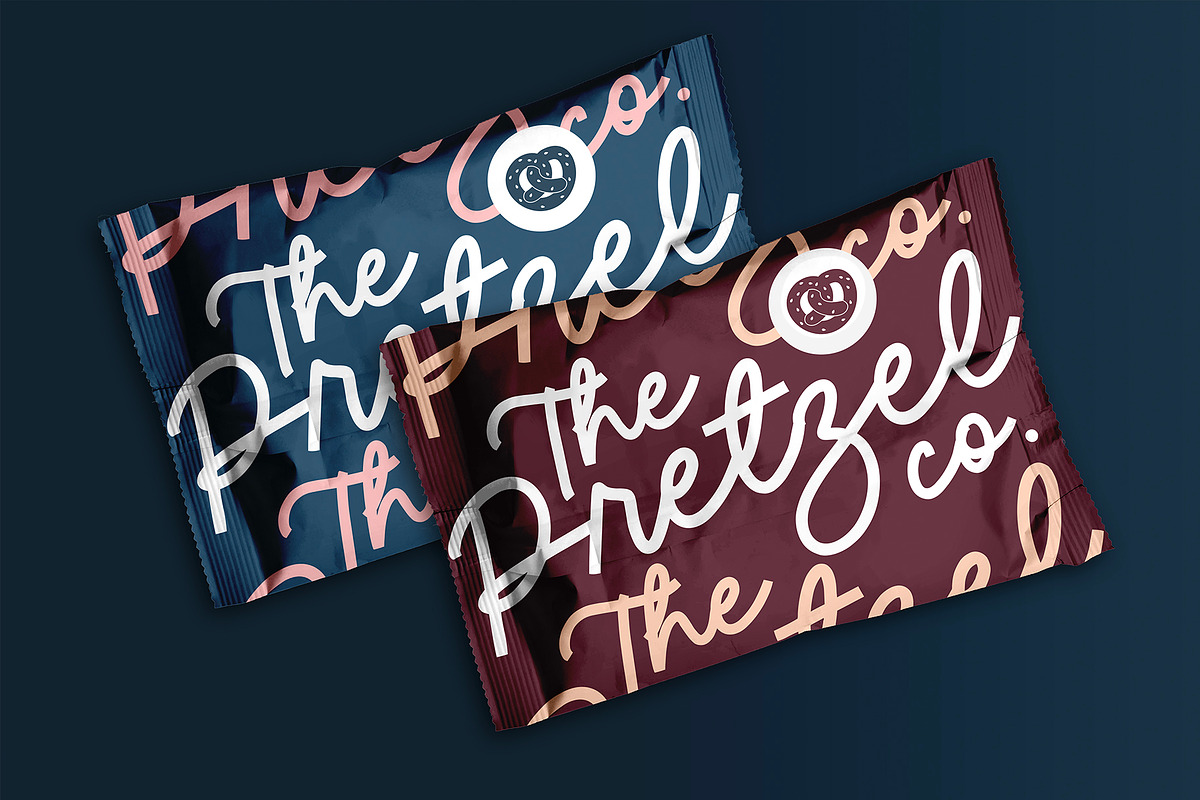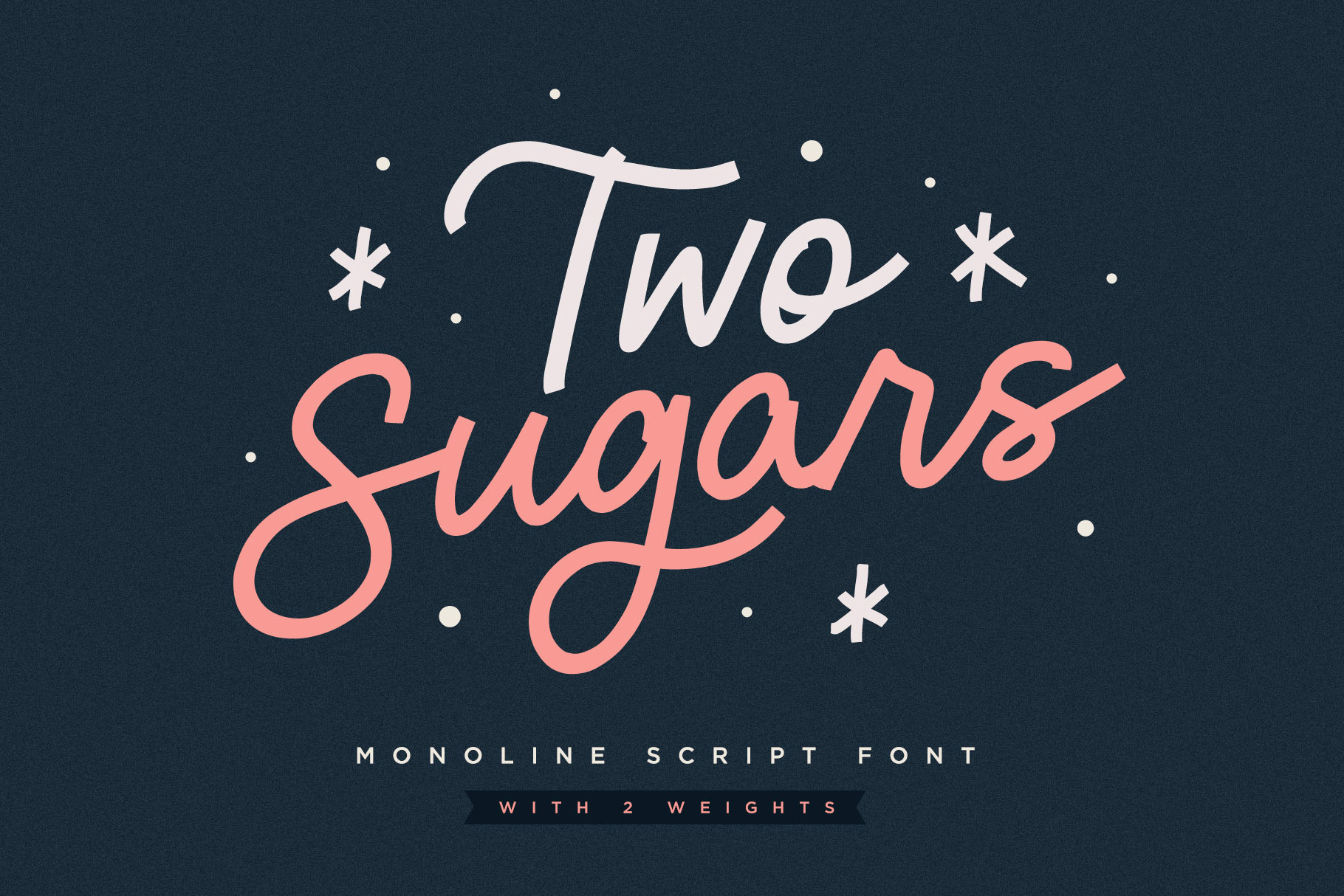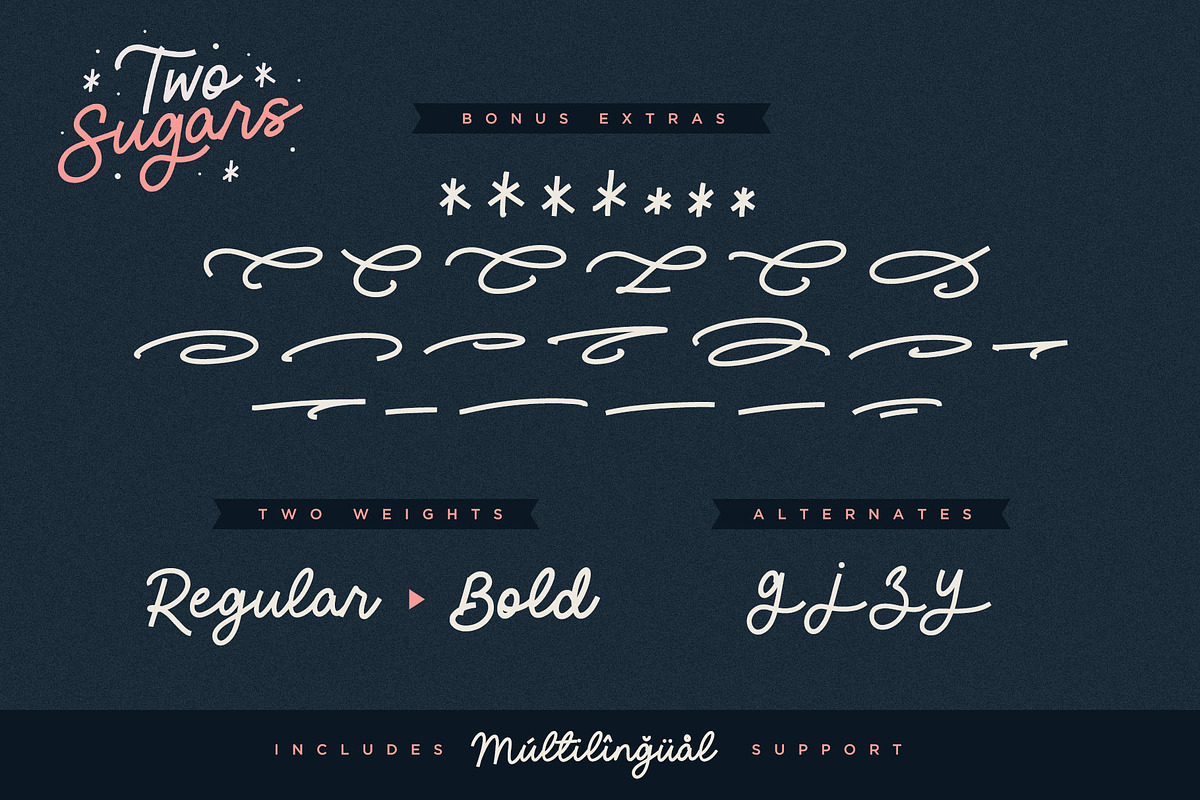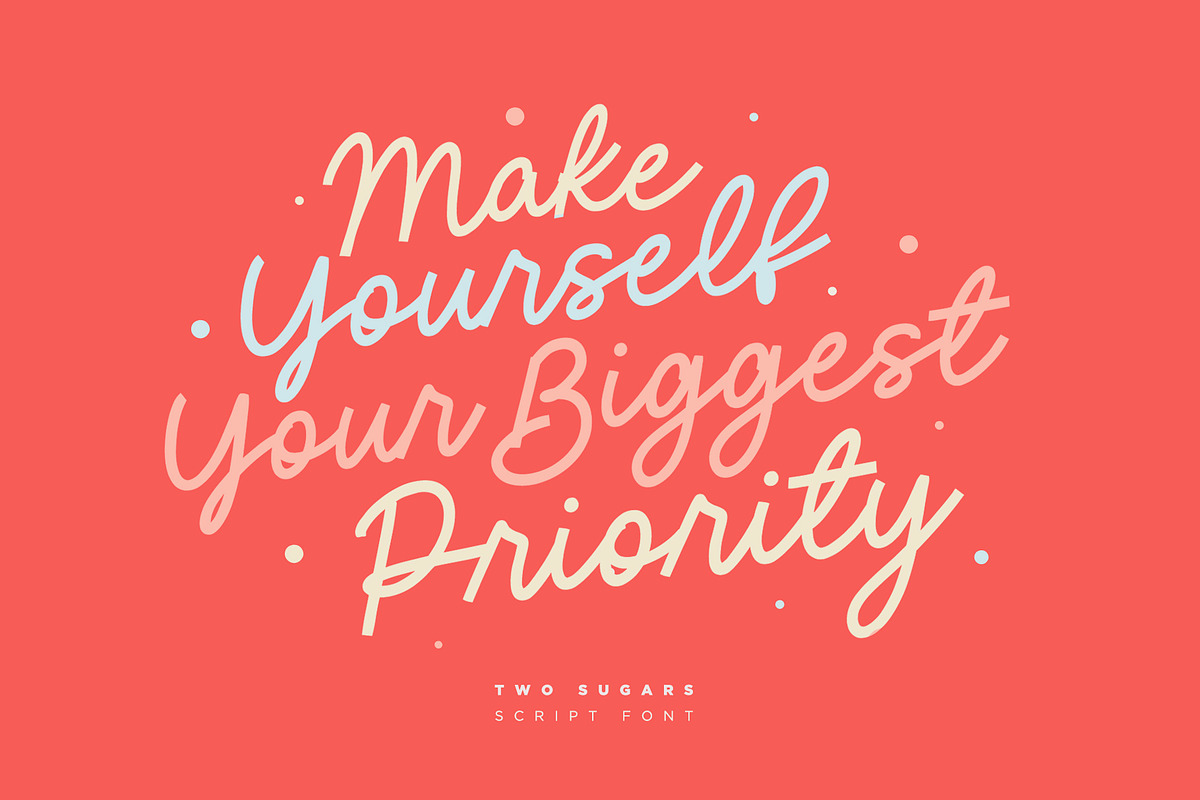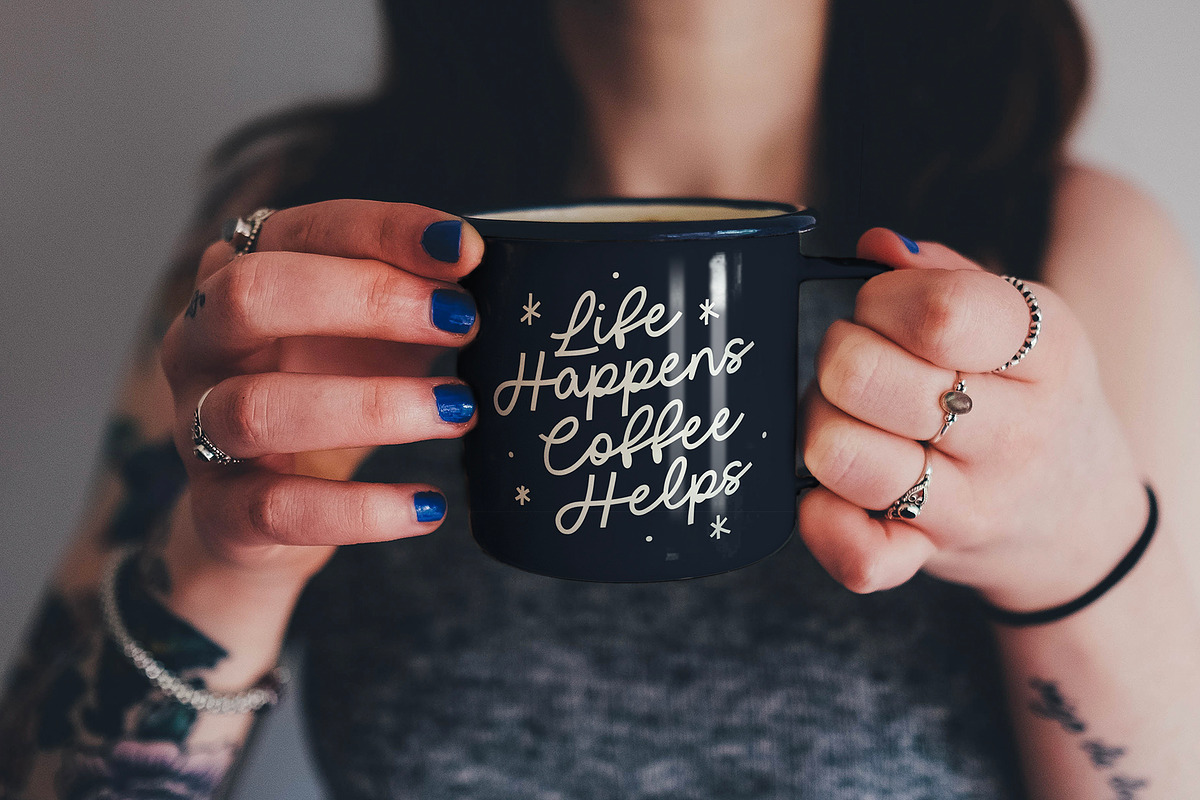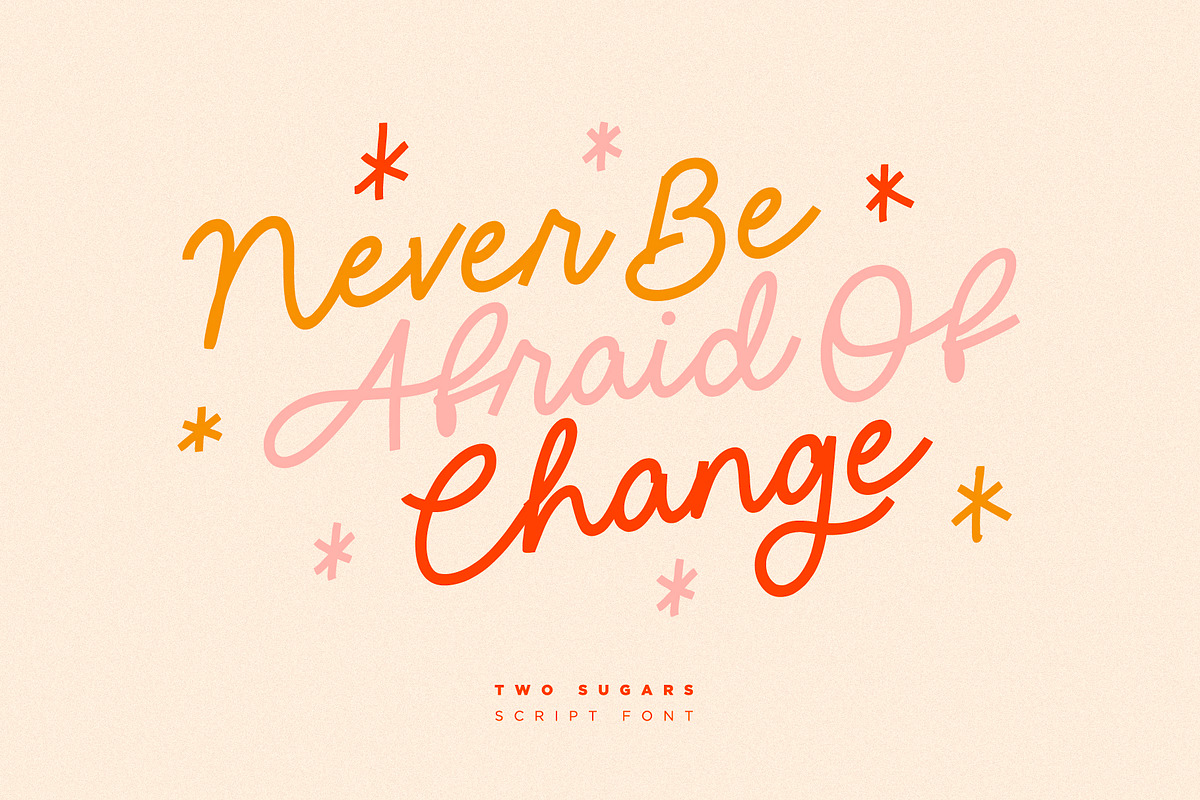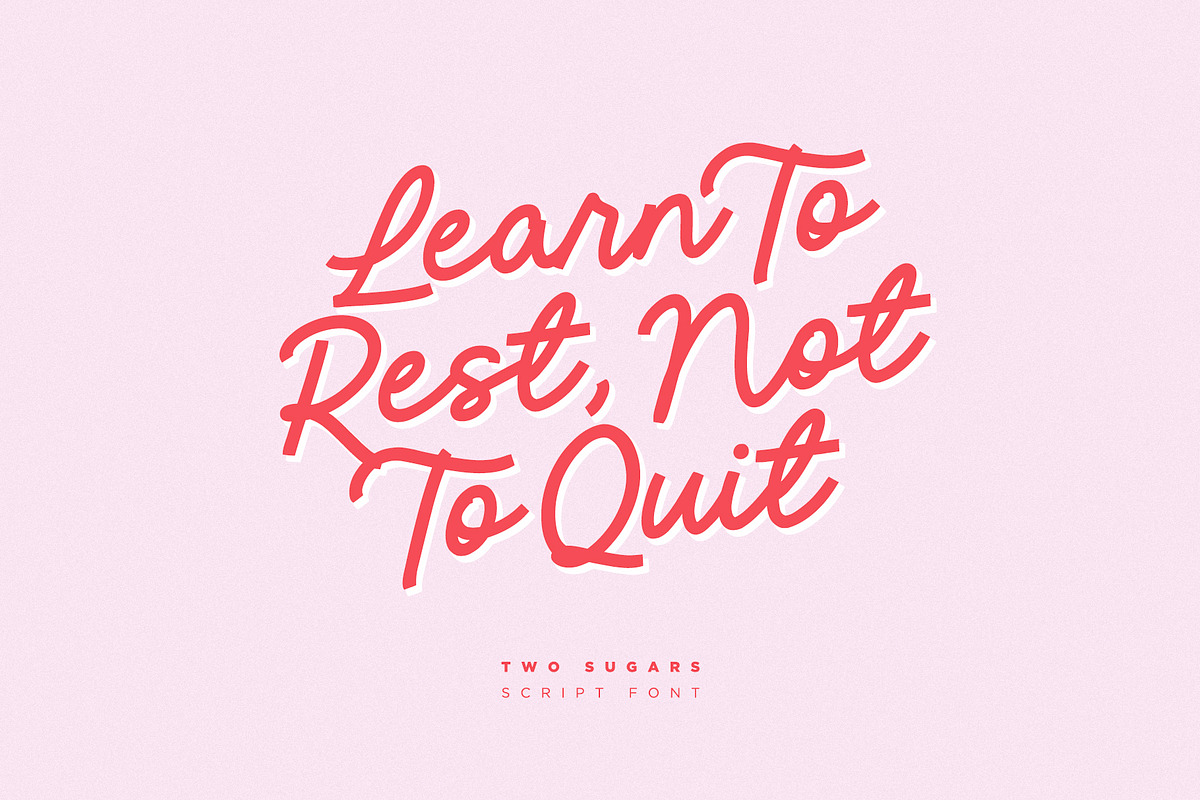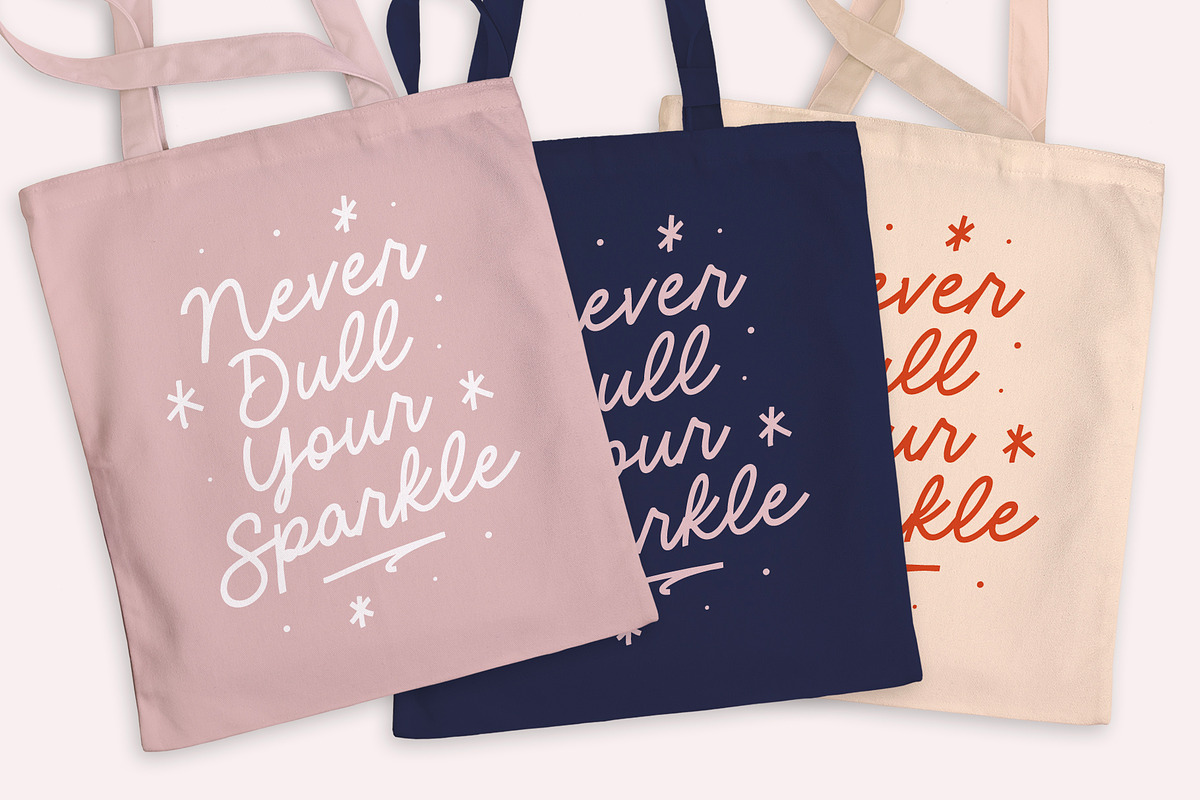
Two Sugars Script Font
Introducing the Two Sugars Script Font! Two Sugars is a playful yet striking clean monoline script font, available in 2 weights and includes bonus extra stars & underlines. It's chunky, hand-drawn letterforms are guaranteed to stand out whether that be on light hearted merchandise designs or more impactful quote designs.
Two Sugars Regular • A clean, connecting script font containing upper & lowercase characters, numerals, and a large range of punctuation.
Two Sugars Extras • A set of 26 hand-drawn stars & underlines designed to compliment your Two Sugars script fonts. Simply install this as it's own separate font, and type any A-Z character to generate one of the extras.
Two Sugars Bold & Two Sugars Extras Bold • If you're looking for a chunkier version of the Two Sugars & Two Sugars Extras fonts, simply switch to the bold versions!
Alternates • Are available for lowercase descenders g, j, z, & y. These have elongated tails to add some extra flair to your text, and are accessible by switching on 'Stylistic Alternates' or via a Glyphs panel.
Language Support • Two Sugars supports the following languages; English, French, Italian, Spanish, Portuguese, German, Swedish, Norwegian, Danish, Dutch, Finnish, Indonesian, Malay, Hungarian, Polish, Croatian, Turkish, Romanian, Czech, Latvian, Lithuanian, Slovak, Slovenian